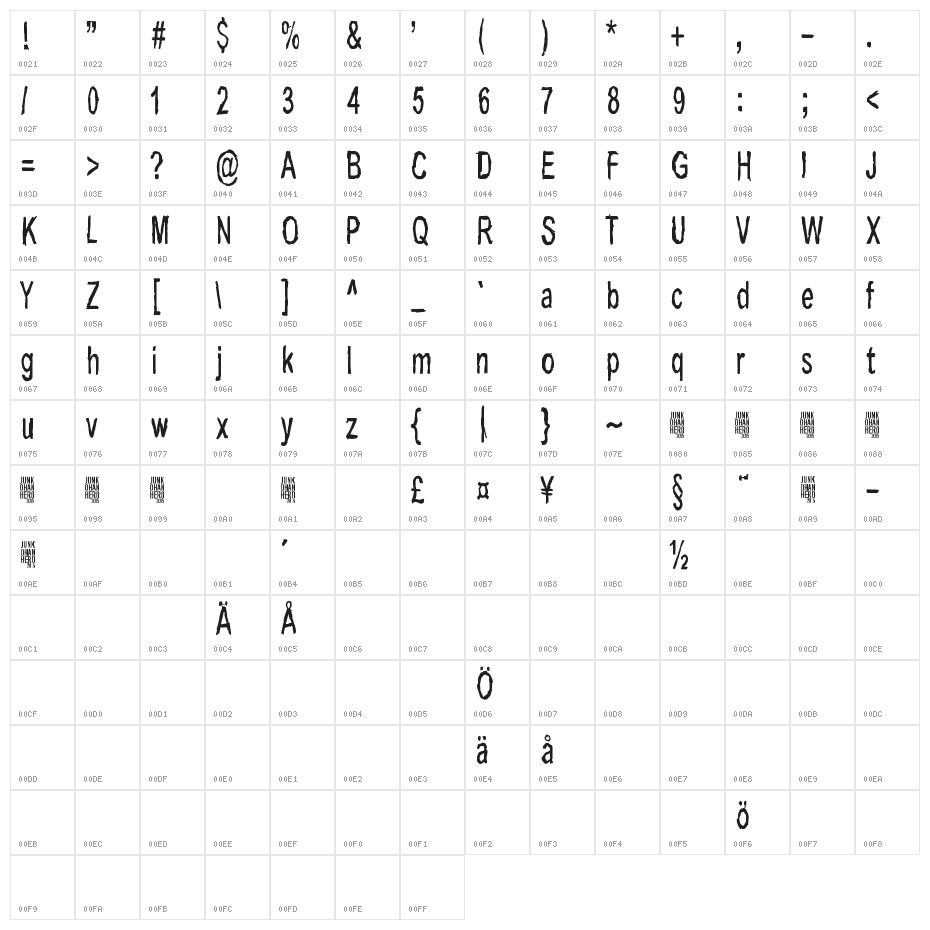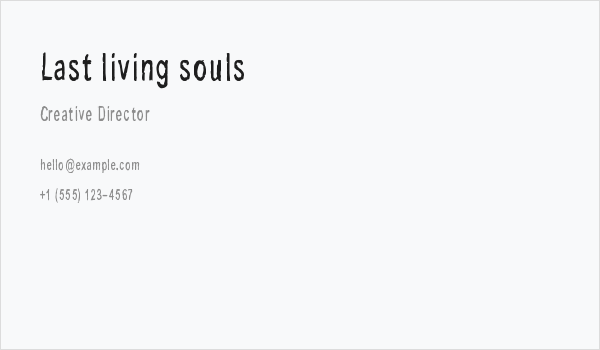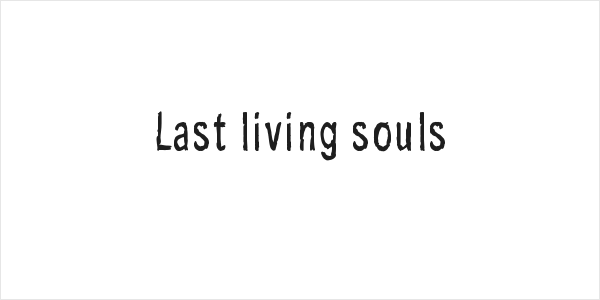
Last living souls Font
Last living souls Description
This font features a rugged, hand-drawn appearance with irregular edges and a slightly distressed look, giving it a raw and organic feel. The uppercase and lowercase letters maintain a consistent height, while the numbers and special characters complement the overall style. The strokes are uneven, adding to the font's unique character and making it ideal for projects that require a touch of authenticity and individuality. Its bold presence and distinctive style make it suitable for eye-catching designs.
| Proposed Projects | Ideal for posters, album covers, branding materials, and any project seeking a unique, handcrafted aesthetic. |